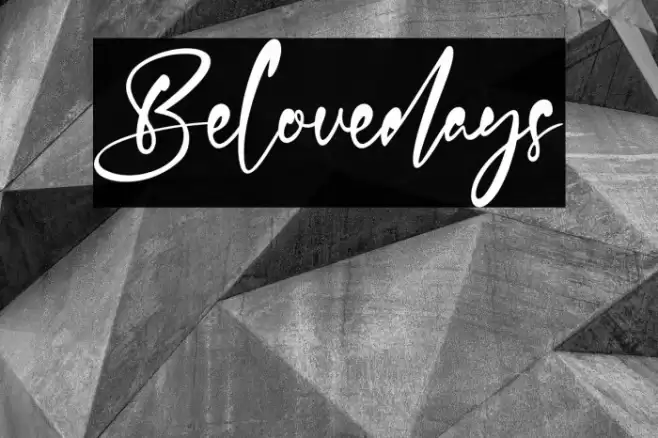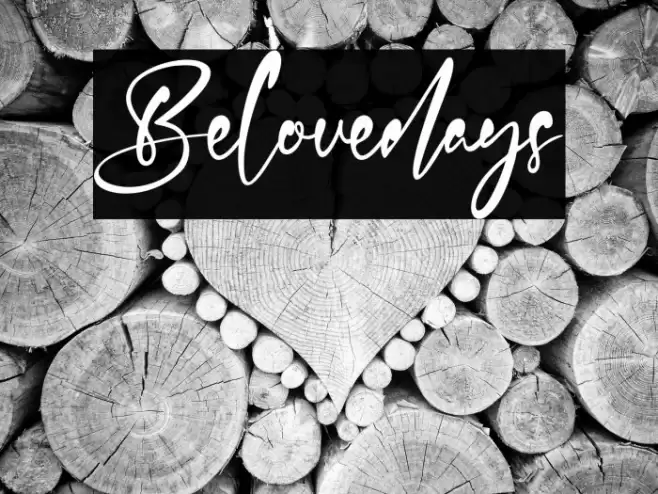
Belovedays Font
Belovedays Description
This font features an elegant, flowing script style with a handwritten appearance. The uppercase letters are characterized by their sweeping curves and fluid connections, giving a sense of motion and grace. The lowercase letters maintain a consistent style, with some letters extending below the baseline, adding to the dynamic feel. Numbers and special characters are designed to match the overall aesthetic, with a playful yet sophisticated look. The font's strokes vary in thickness, providing a medium contrast that enhances readability while maintaining its decorative appeal.
An elegant, flowing script font with a handwritten style and medium contrast from Uncategorized fonts.
- Proposed Projects: Ideal for wedding invitations, greeting cards, branding projects, and elegant packaging designs.
- Overall Style: Elegant, Decorative
- Use Case: Logos, Invitations, Decorative text